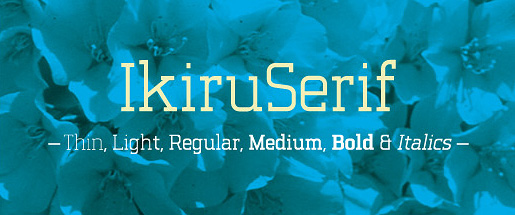
IkiruSerif (DGV)
IkiruSerif is a contemporary Slab-Serif font family with enough esprit to make your
graphic language teem with zest and power. Ikiru means “to live, to exist” in Japanese
and the typeface comes in 10 weights including thin, light, medium, bold and their
italic versions – all of which are designed from the thin version giving the typeface an
elegant, sharp and discreet appearance and a forceful, concise look in the bold versions.
The IkiruSerif font family is suitable for composing texts of various lengths – effective
for a wide range of daily use. The thin version is especially designed for usage in big
point sizes, for instance in posters or banners.